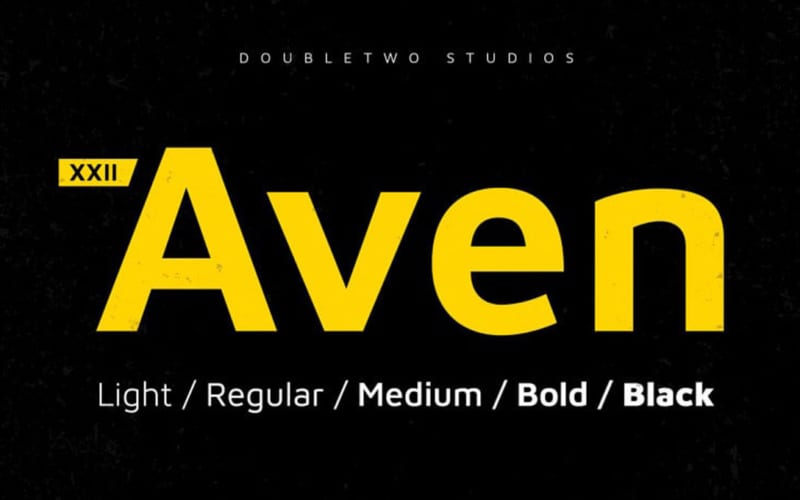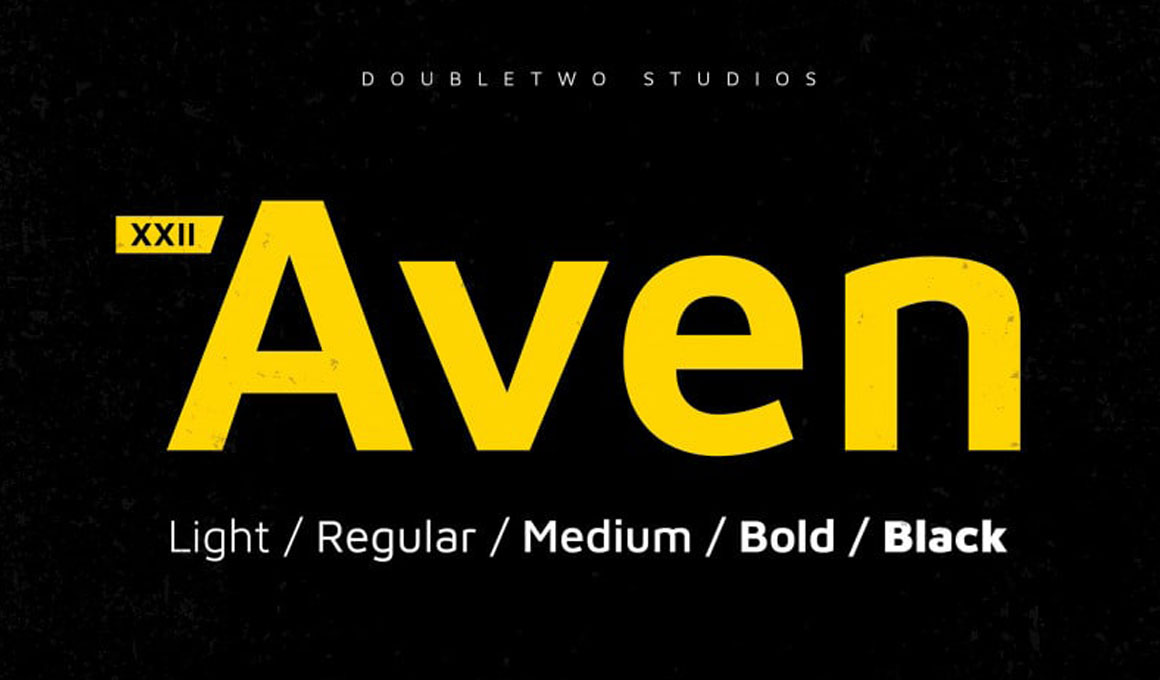
XXII Aven Sans Serif Font Family
XXII Aven Font Family – a new modern all-caps sans serif font with versatility in creativity.
XXII Aven Font Family – a new modern all-caps sans serif font with versatility in creativity. It’s a very modern display sans serif Font will look gorgeous on all your designs, poster design, book design, branding materials, invitation, logo’s, t-shirt etc.
This font family is a fork/modified version of Maven Pro originally released by Joe Prince, 2011 under the SIL Open Font License, Version 1.1. http://scripts.sil.org/OFL
Based on the original design and with some tiny adjustments this font version now ’improved’ version of this font family.